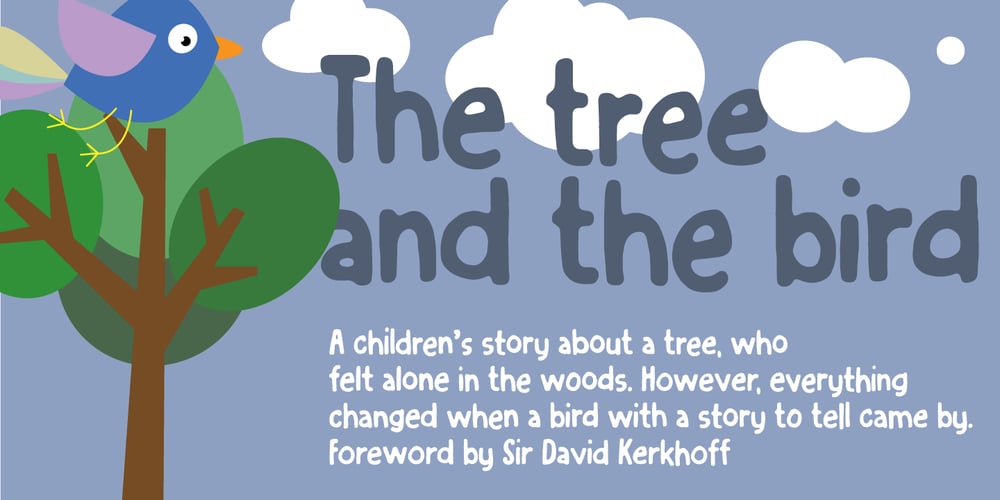
Knofedt Font Family was designed by Jakob Fischer and published by PizzaDude.dk. Knofedt contains 2 styles and family package options. Comicbook letters with a laid back slightly wobbly look! 4 different lowercase letters, which automatically cycle as you type! Wow!